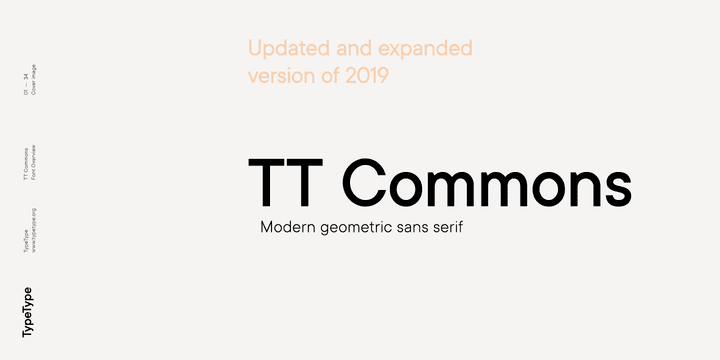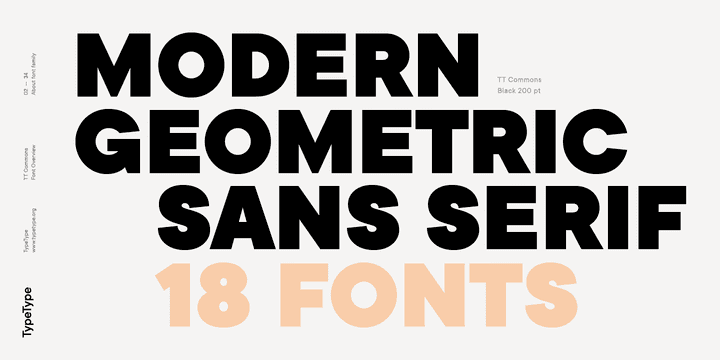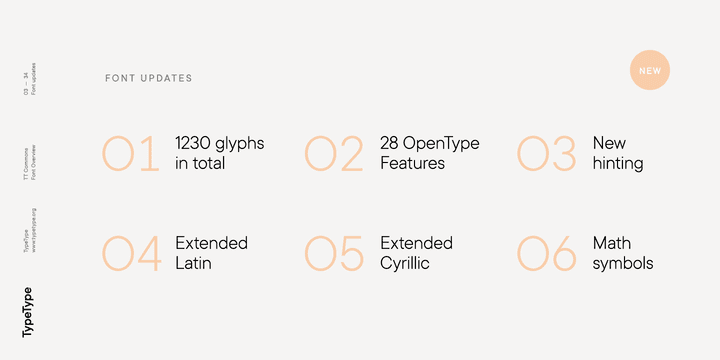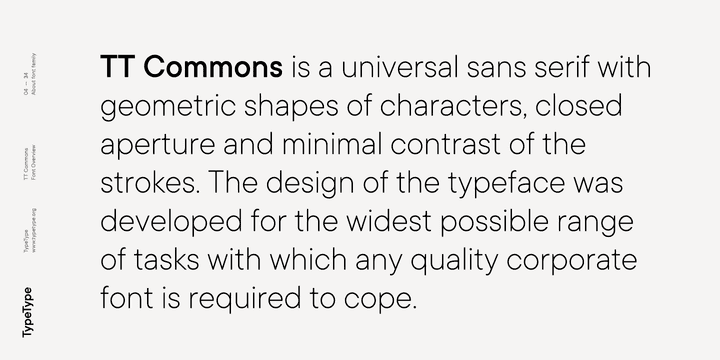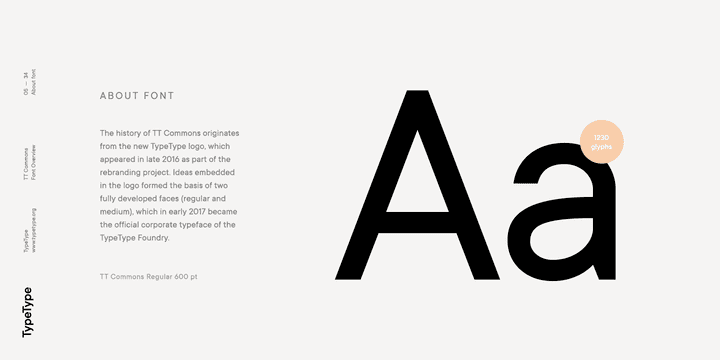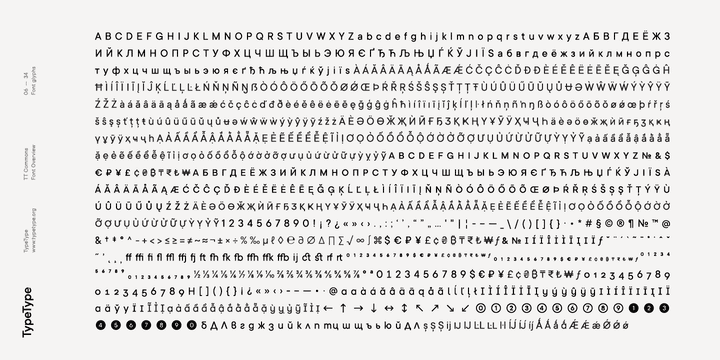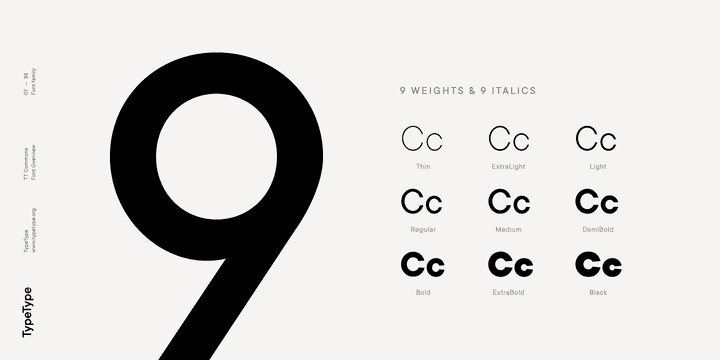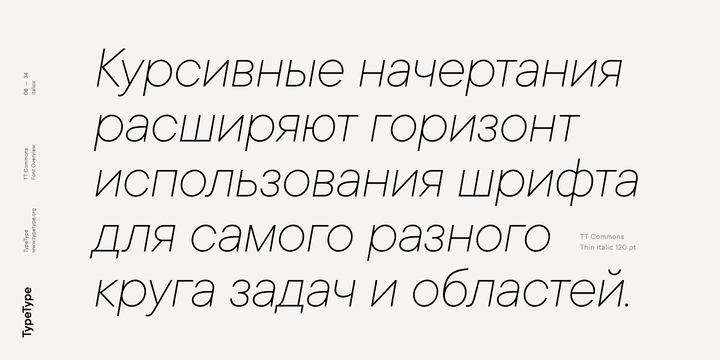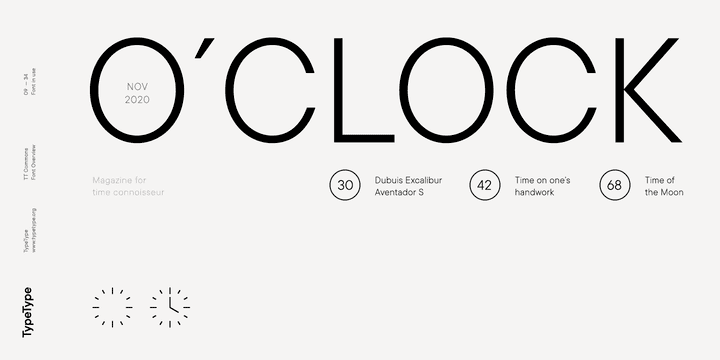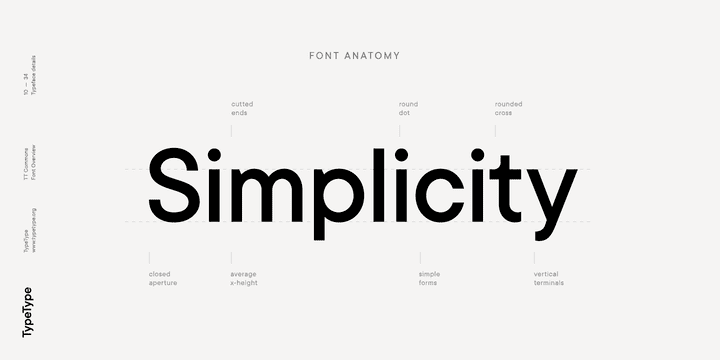
TT Commons is a universal sans serif with a minimal contrast of strokes, a closed aperture and geometric shapes of characters. The design of the typeface was developed for the widest possible range of tasks with which any quality corporate font is required to cope. The history of TT Commons originates from the new TypeType logo, which appeared in late 2016 as part of the rebranding project. Ideas embedded in the logo formed the basis of two fully developed faces (regular and medium), which in early 2017 became the official corporate typeface of the TypeType Foundry.
Initially, we did not plan to release TT Commons for sale, but given the number of incoming requests, we changed our decision. At the same time, we have significantly improved the typeface: we increased the number of faces to 18, added small capitals for the Latin and Cyrillic alphabets, expanded the character case to 771 glyphs, introduced 18 OpenType features, and included experimental hinting performed at our studio by our team.
Low contrast strokes and averaged drawing of letters makes TT Commons excellent for large arrays of text. On the other hand, an individually developed design of each glyph makes it possible to use it successfully as a display font. The typeface intentionally does not have distinctive decorative details. On the contrary, it wins hearts with his laconism, simplicity and sharpness of forms, which set the seasoned corporate style for years to come.
The name TT Commons comes from the word ‘common’ (widely accepted, typical, frequent)—this typeface can be used for any everyday tasks related to typography. And small capitals, stylistic alternates, ligatures, arrows, different types of figures and other features (ordn, frac, case, c2sc, smcp, sinf, sups, numr, dnom, tnum, onum, lnum, pnum, liga, dlig, calt, salt, ss01) add significant functionality. If you are in doubt about which typeface to choose, pick TT Commons, it will definitely work.
• The number of glyphs has been increased from 771 to 1230
• Number of OpenType features increased from 19 to 27
• Added math and additional currency symbols
• Entirely new hinting has been done
• Added Vietnamese language
• Cyrillic support extended
• Latin support expanded